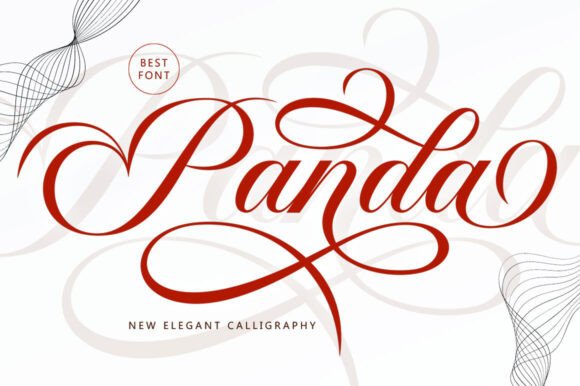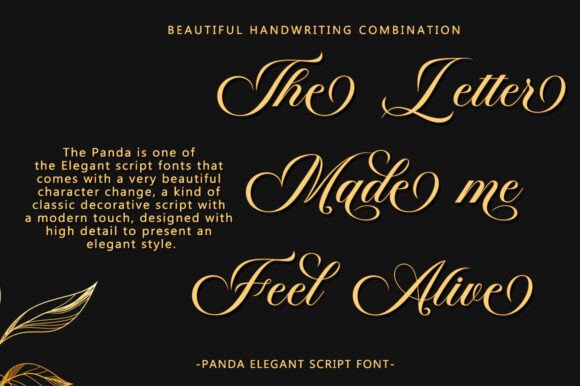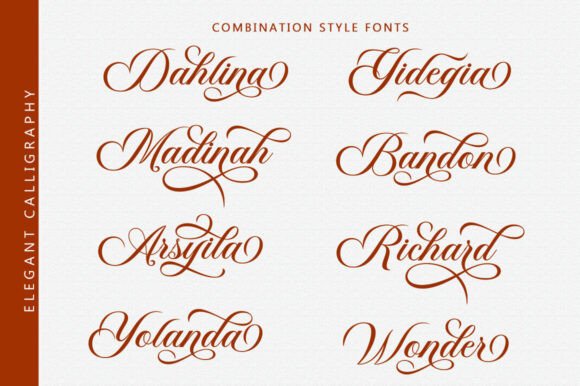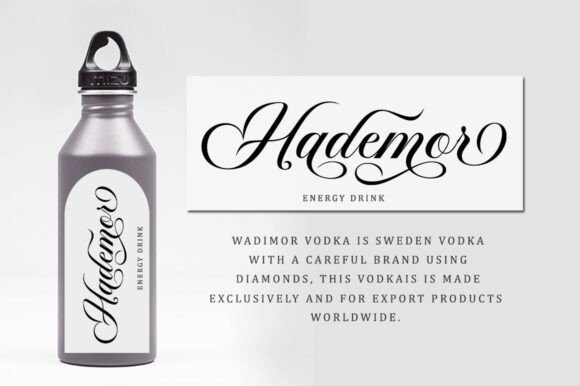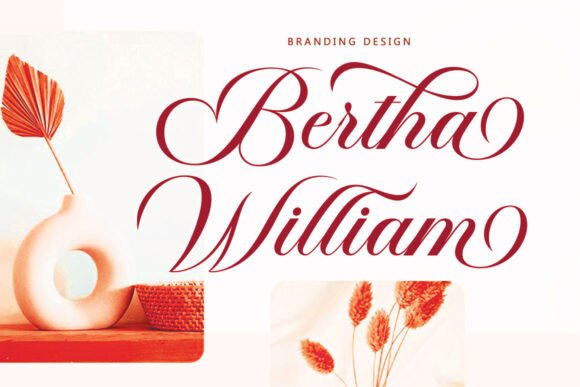
Panda is a graceful script font that blends timeless copperplate elegance with a modern twist. With its flowing curves, refined details, and luxurious letterforms, Panda adds a feminine, stylish touch to any design. Perfect for weddings, branding, menus, packaging, invitations, and more—this font brings sophistication and charm to every project.